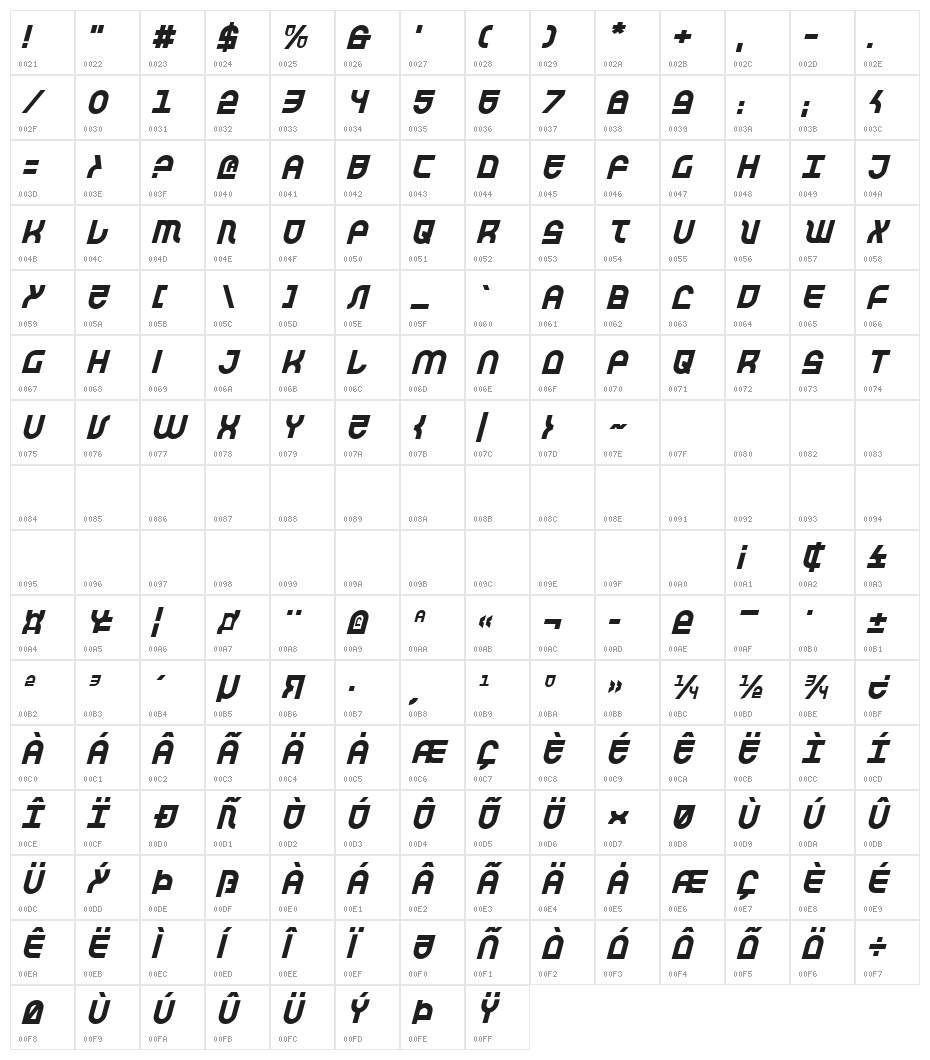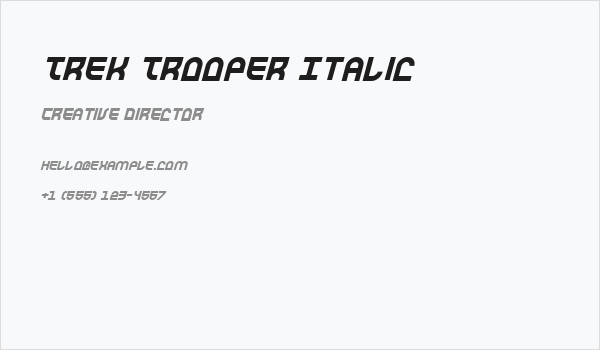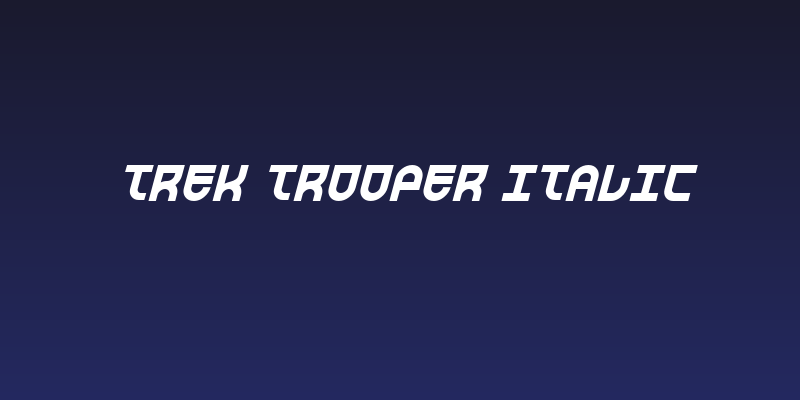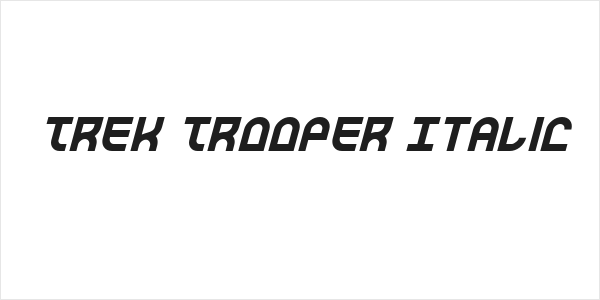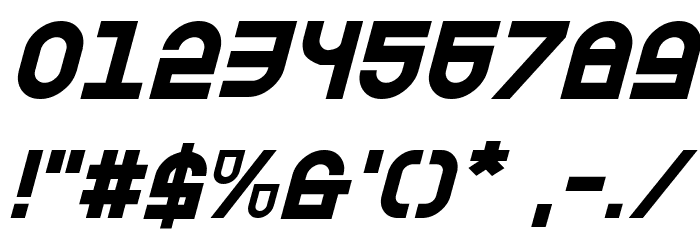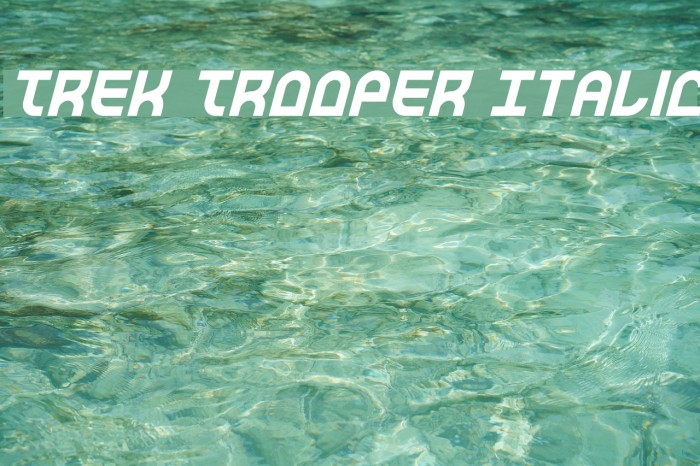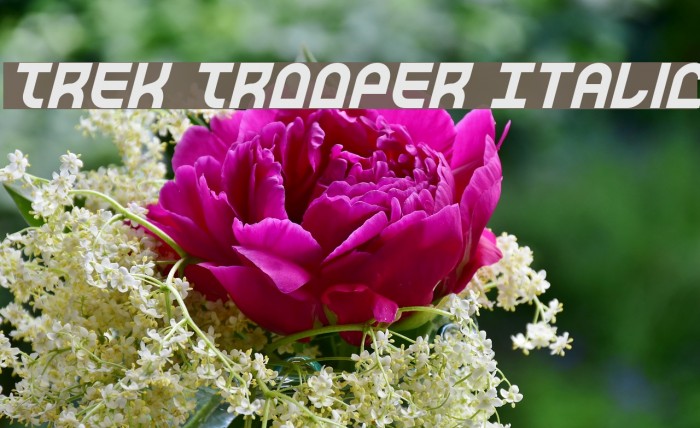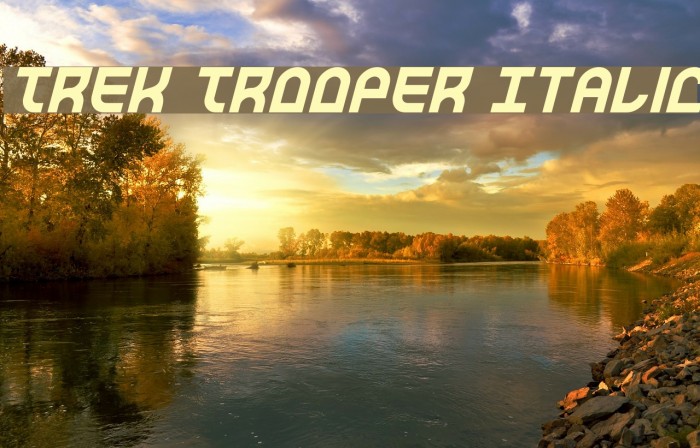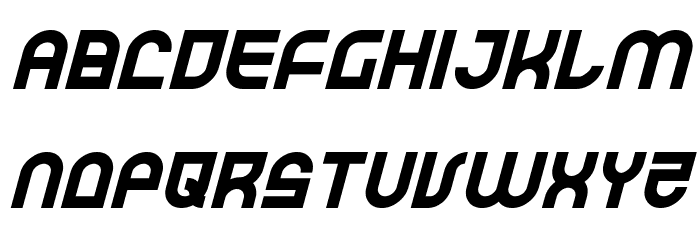
Trek Trooper Italic Font
Trek Trooper Italic Description
This font features a futuristic and dynamic design with a slanted, italicized style that gives it a sense of motion and energy. The characters are bold and geometric, with sharp angles and clean lines that create a modern and technical appearance. The uppercase and lowercase letters maintain a consistent style, with unique shapes that stand out. The numbers and special characters are designed to match the overall aesthetic, making them suitable for a variety of applications. The font's distinct style makes it ideal for projects that require a bold and eye-catching typeface.
| Proposed Projects | Ideal for sci-fi themed projects, tech branding, video game titles, and futuristic posters. |